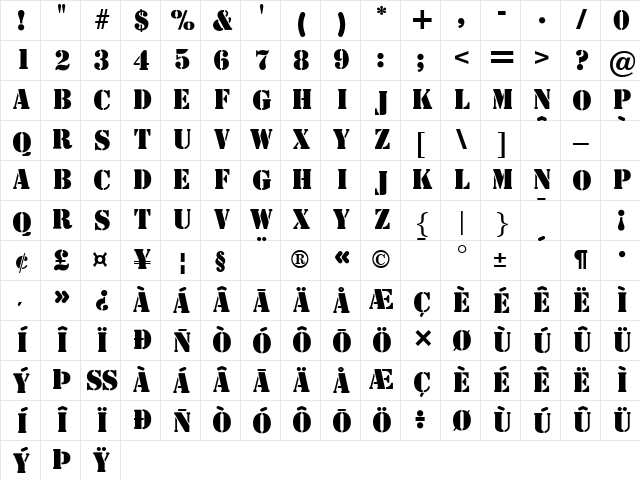
Stencil Display Regular
Design Context for Stencil Display
Stencil Display borrows the utilitarian aesthetic of stencil lettering, with its characteristic cutaways and no-frills construction lending an industrial edge.
Pro Tip: Use Stencil Display at large sizes on packaging, posters, or apparel where the stencil cutaways read clearly. Avoid small sizes where those gaps become visual noise.